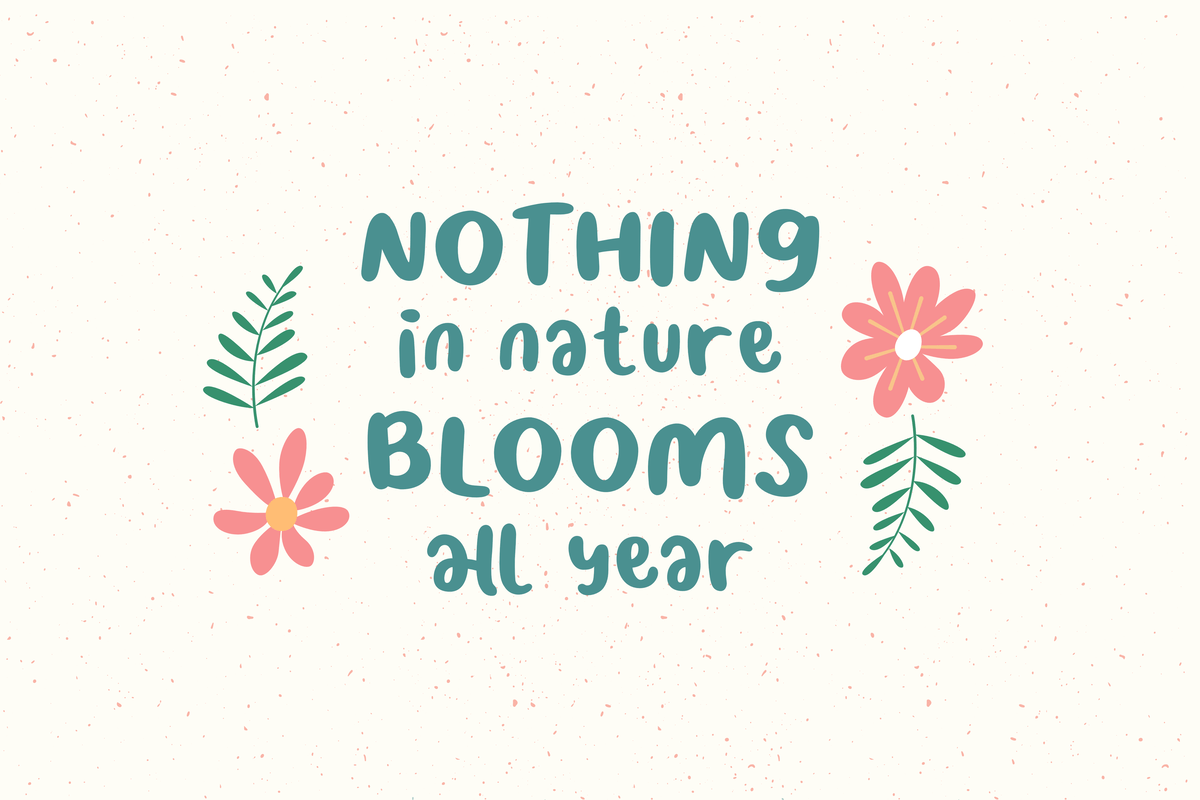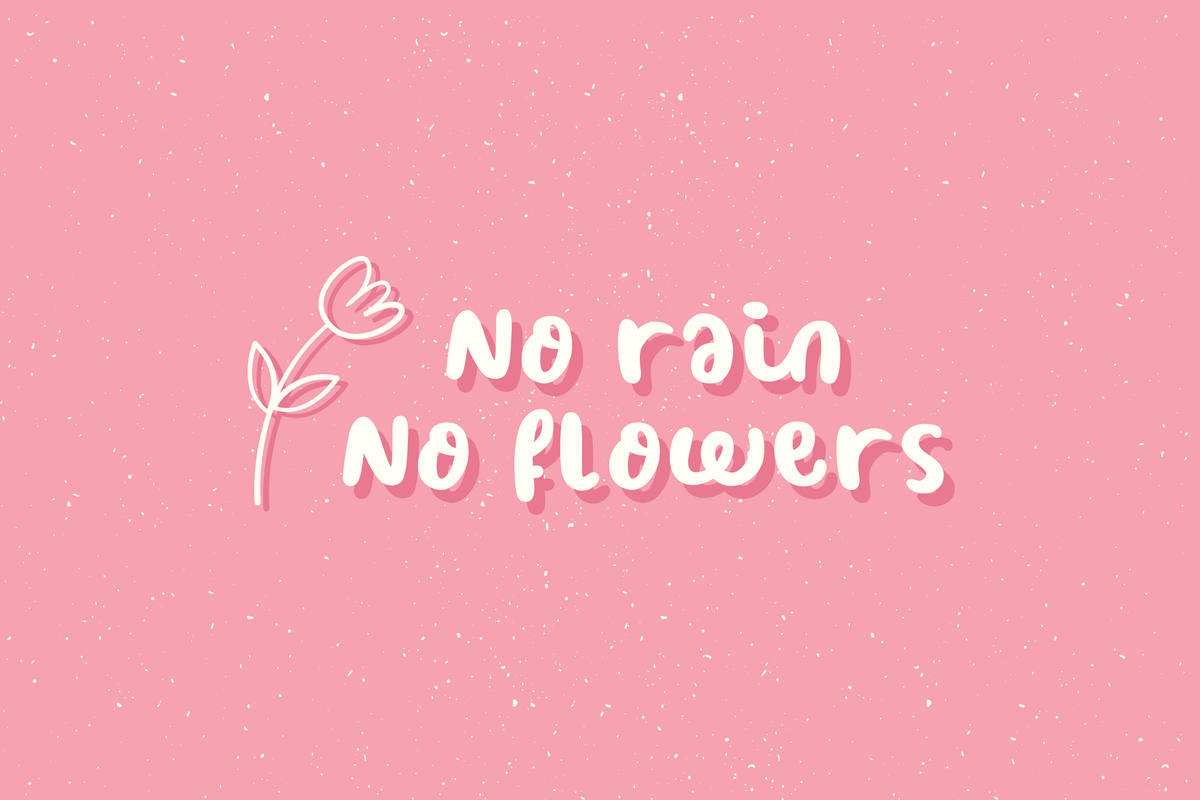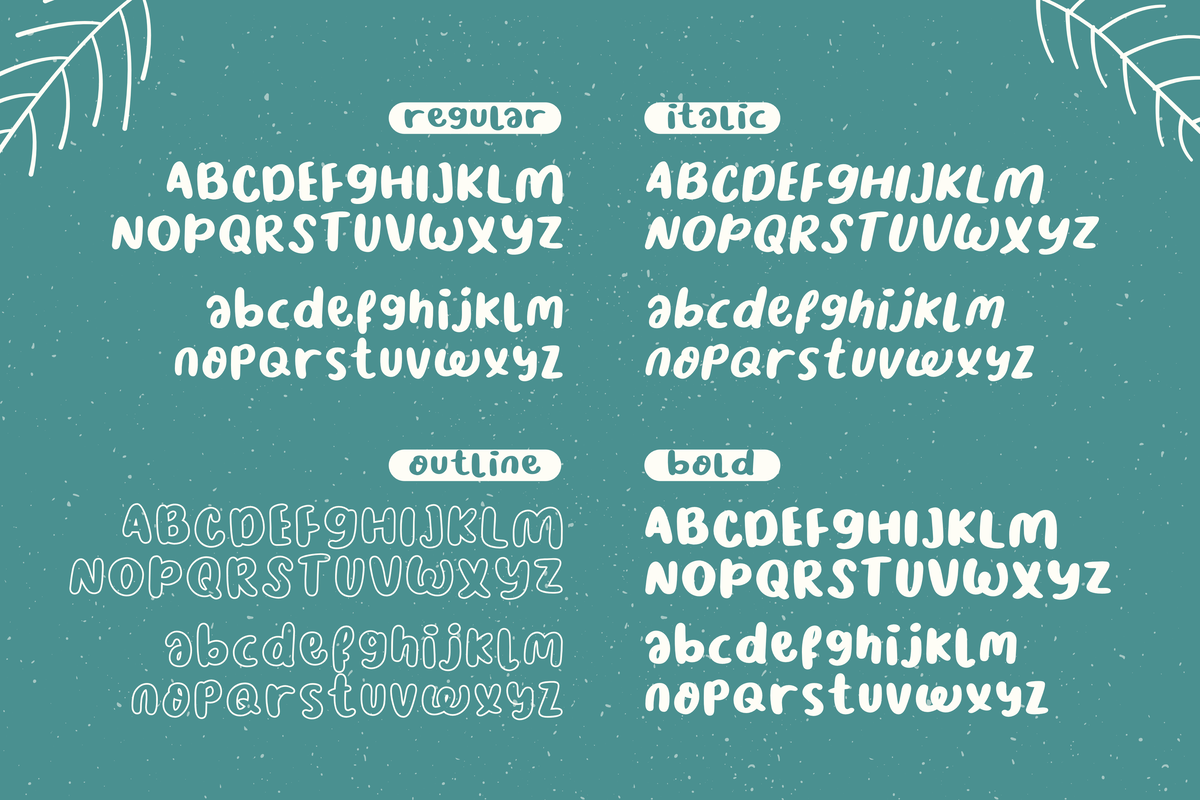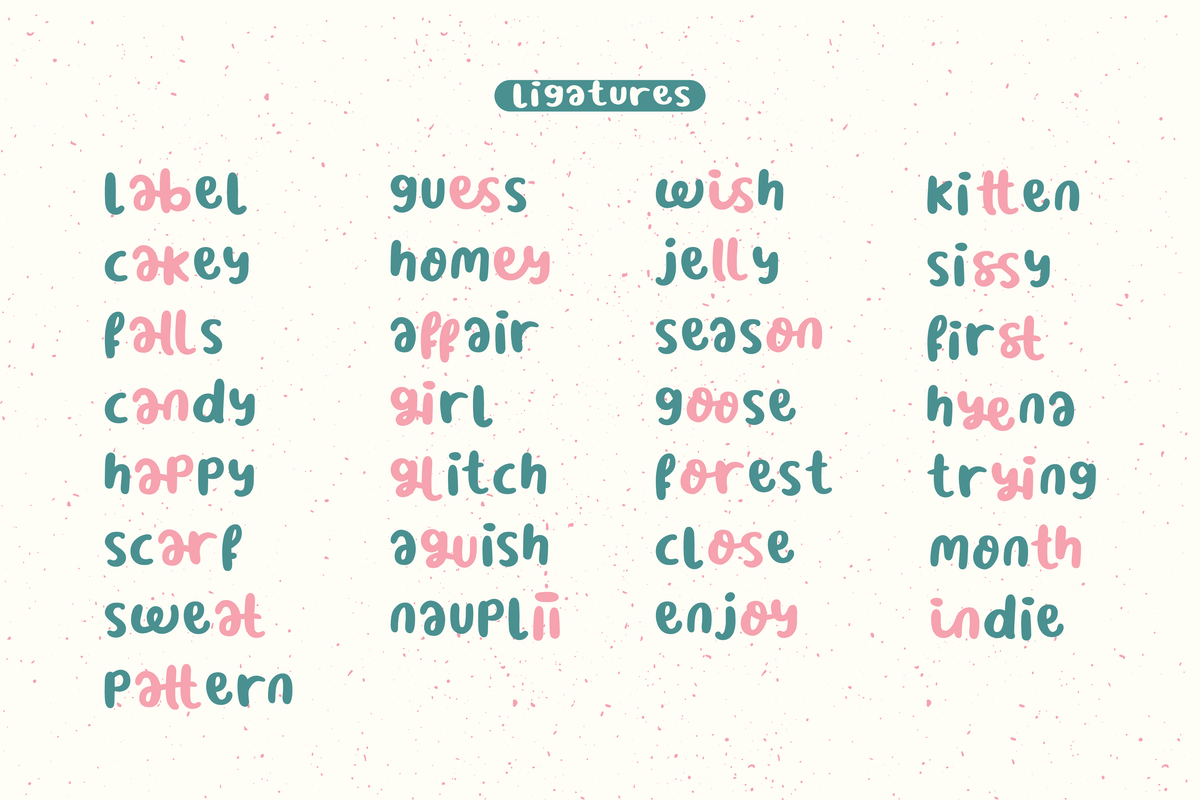
Nice Weather Font
Nice Weather Display Font
This is a cute, paint brushed handwritten font. It is perfect for any branding project such as logos, t-shirt printing, creative products, and more. It will look extraordinary in a variety of contexts.